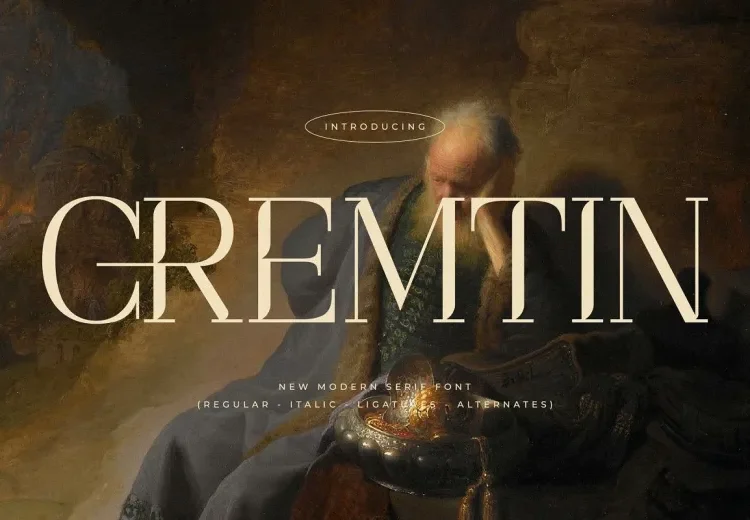
Cremtin Font
Cremtin is an elegant and timeless serif typeface that exudes sophistication and modernity. Its distinct style and refined appearance make it an excellent choice for a variety of design projects that require a touch of luxury and class. Whether you’re working on creating logos, movie or book titles, or branding for fashion lines, Cremtin delivers a polished and upscale look that leaves a lasting impression.
Key Features and Design Attributes:
• Timeless Elegance: The serif design of Cremtin embodies a classic elegance that never goes out of style. Its sharp, clean lines and well-proportioned letterforms convey a sense of refinement and professionalism, making it ideal for upscale branding and high-end design projects.
• Versatility in Application: Cremtin’s versatility allows it to shine in a wide range of applications. Whether you’re designing logos, book covers, or fashion brand identities, this font adapts effortlessly to different contexts while maintaining its luxurious feel. It’s particularly well-suited for projects that require a sophisticated and modern aesthetic.
• Modern Appeal: While rooted in traditional serif styles, Cremtin features modern touches that keep it relevant and fresh. This combination of classic and contemporary elements makes it a go-to choice for designers aiming to create a balance between tradition and modernity.
Ideal Uses:
• Logos: Cremtin’s distinct and stylish design makes it perfect for creating logos that need to stand out with a sophisticated and luxurious look. Whether for a fashion brand, boutique, or any upscale business, this typeface ensures your brand identity is both memorable and elegant.
• Movie and Book Titles: The timeless serif style of Cremtin is well-suited for movie posters, book covers, and other media where strong, impactful titles are necessary. Its refined appearance draws attention while conveying a sense of quality and class.
• Fashion and Branding: For fashion brands and other luxury markets, Cremtin is an excellent choice for branding materials. Its elegant design enhances the visual appeal of clothing tags, product packaging, and promotional materials, aligning perfectly with high-end brand aesthetics.
• Magazine and Editorial Design: Cremtin’s sophisticated look makes it ideal for use in magazine layouts, particularly in titles, headlines, and feature articles. It adds a layer of class to editorial content, making it visually appealing and professionally polished.